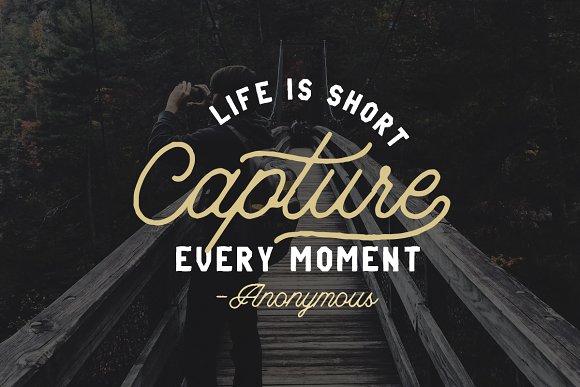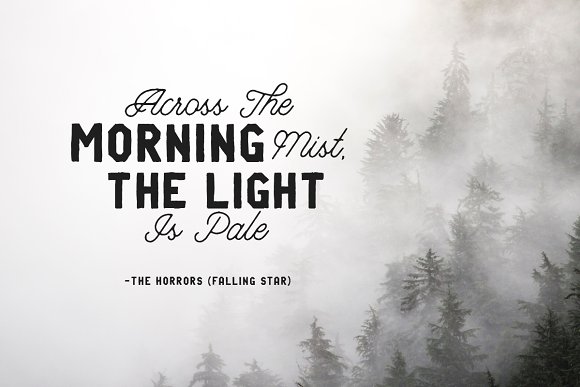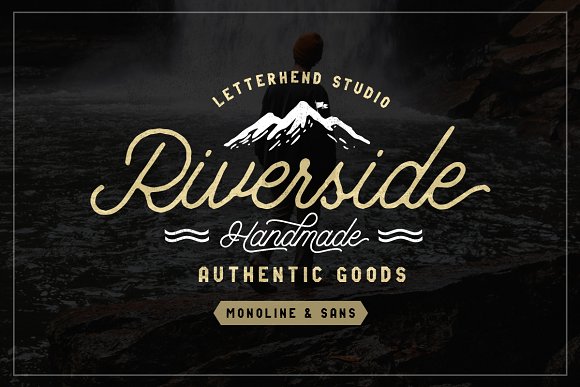
Riverside Font Duo
Continue to be a design of the Letterhend. A new fresh handmade calligraphy font and Sans for typography, lettering, logotype and more. Introducing Riverside. This font is perfect to be used as tshirt design, logo / brand, signature, headline, lettering quotes, etc. It also comes in uppercase, lowercase, punctuations, symbols & numerals, stylistic set alternate, ligatures, etc also support multilingual. It also already PUA Encoded.